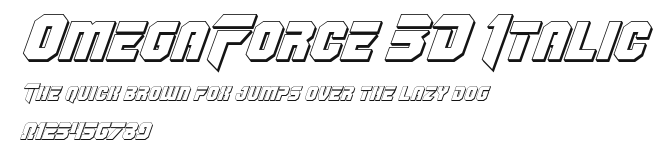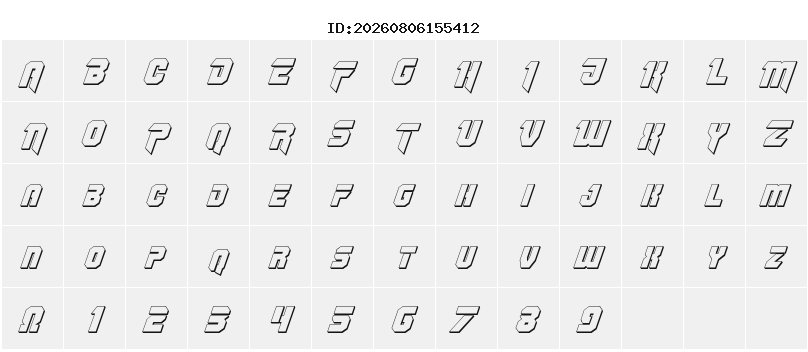
• Font Name: OmegaForce 3D Italic
About OmegaForce 3D Italic.ttf
OmegaForce 3D Italic.ttf is a modern, elegant sans-serif font designed for ultimate readability and visual harmony. Perfect for branding, headlines, web design, and print materials.